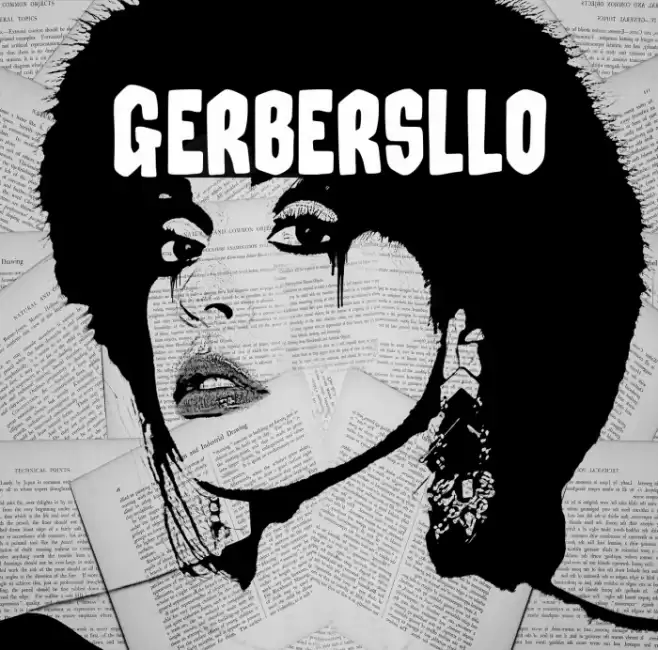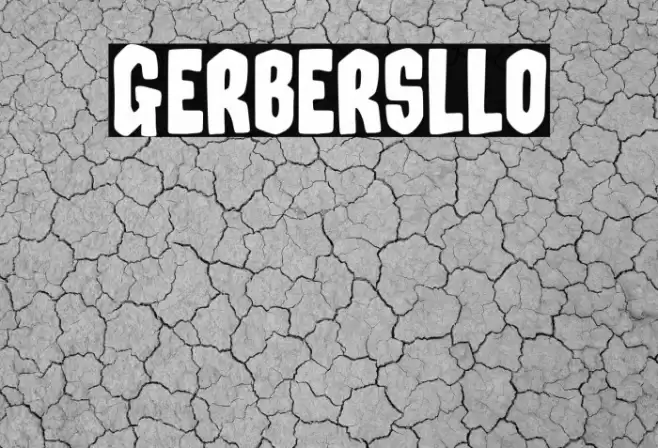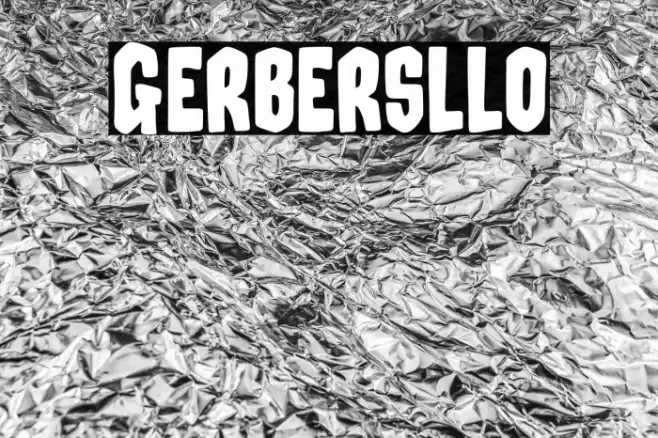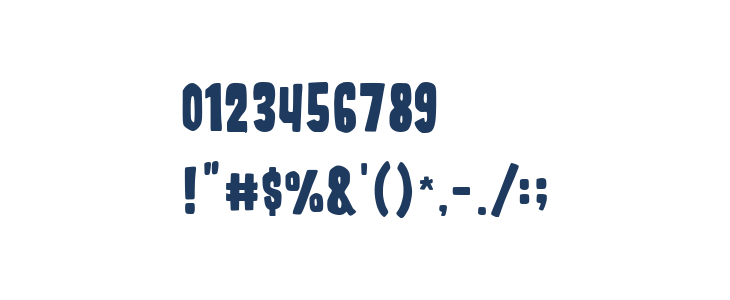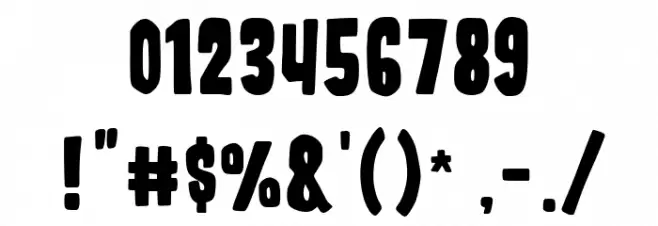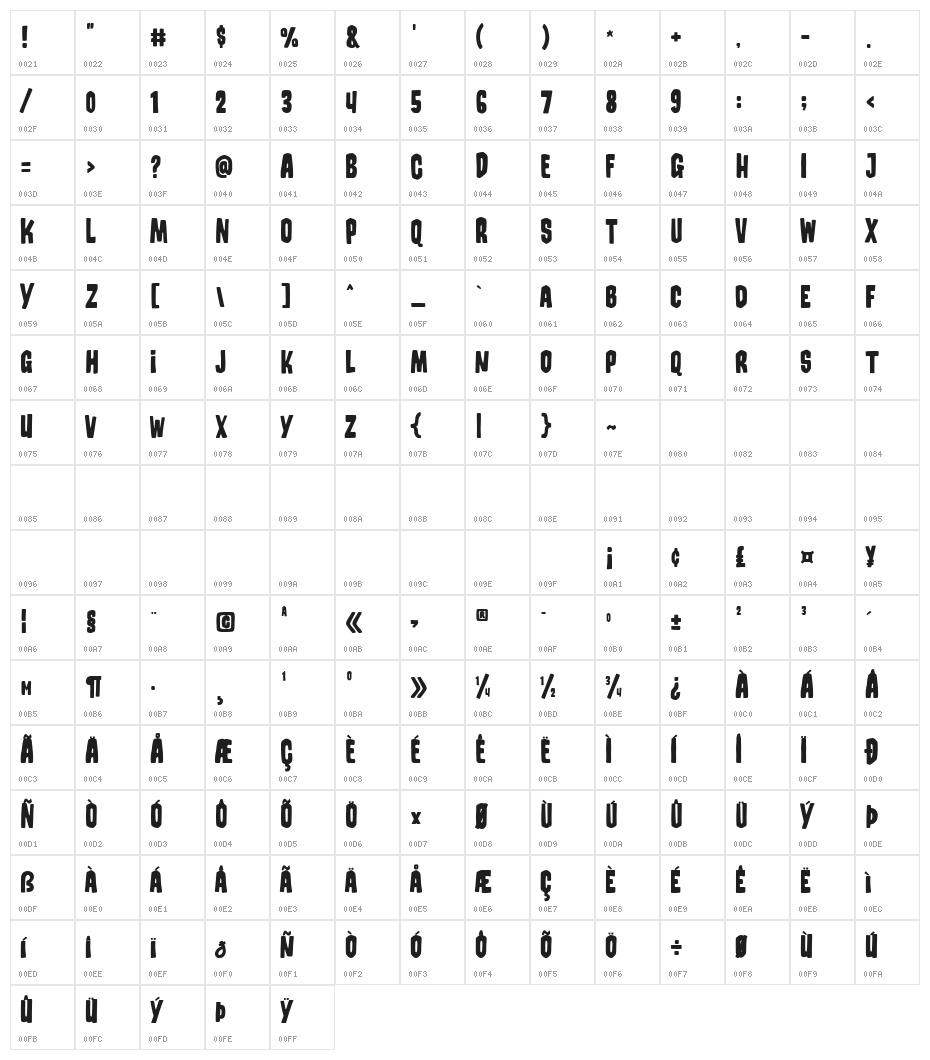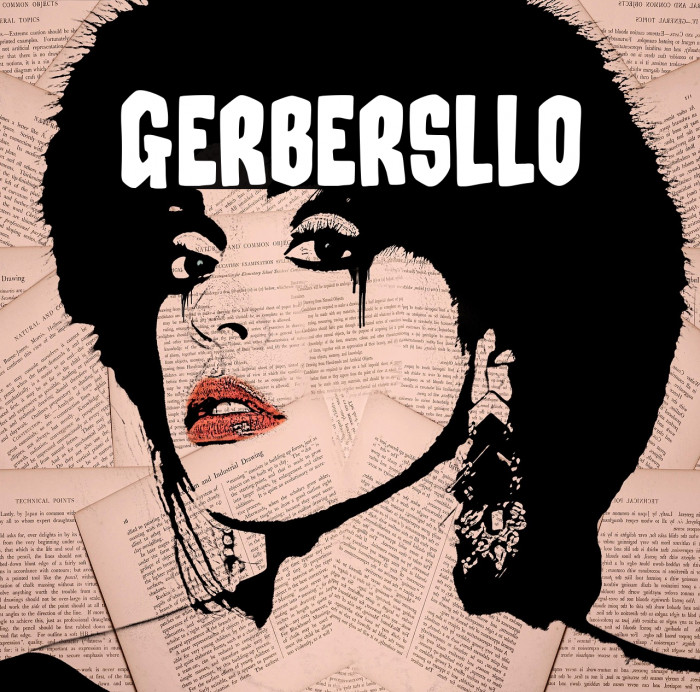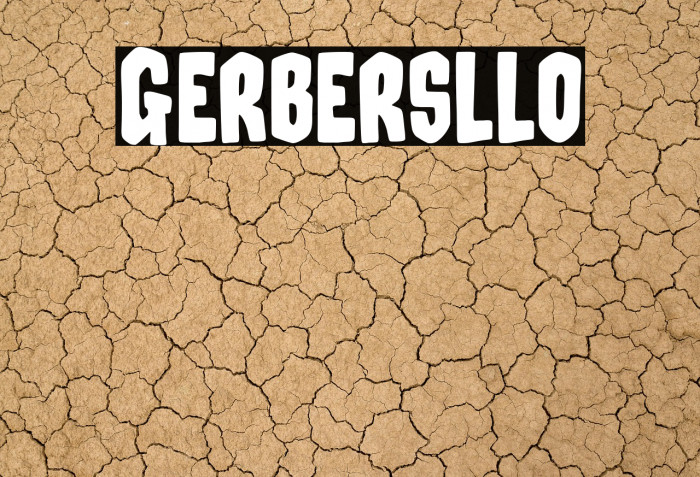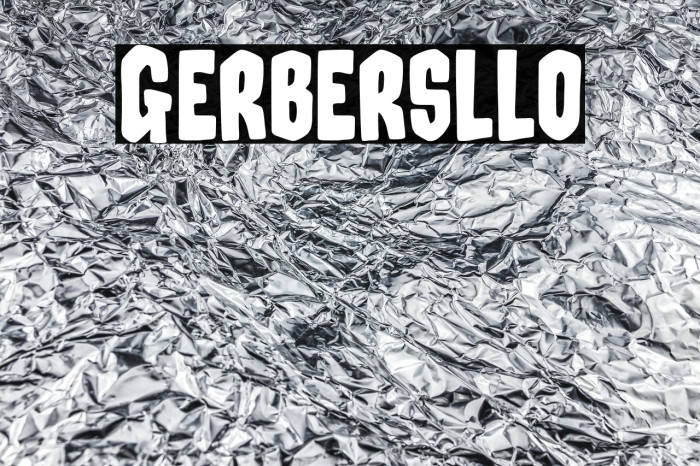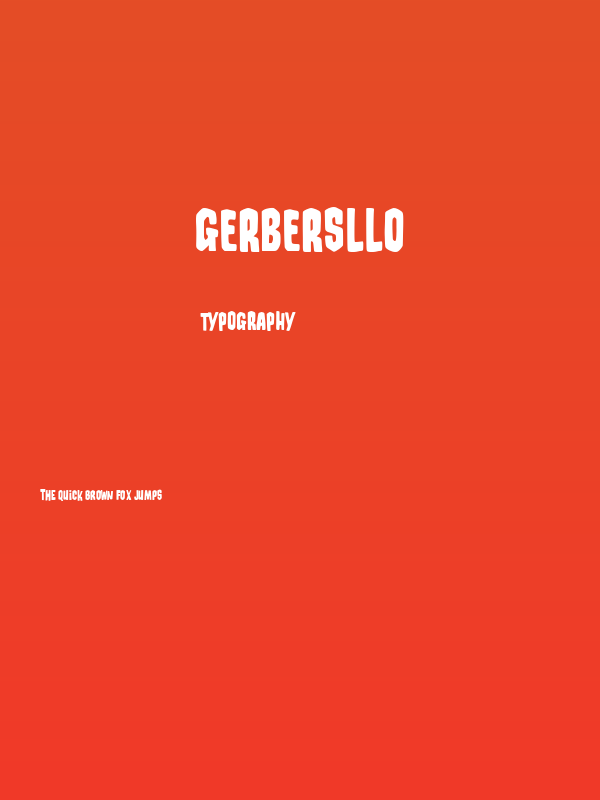
Gerbersllo Font
Gerbersllo Description
This font features a bold and playful style with thick, uneven strokes that give it a hand-drawn appearance. The characters are slightly irregular, adding a whimsical and informal touch. The uppercase and lowercase letters maintain a consistent weight, contributing to a cohesive look. The numbers and special characters follow the same design principles, ensuring uniformity across all glyphs. This font's unique style makes it stand out, making it suitable for creative and fun projects.
A bold, playful font with a hand-drawn, whimsical style from Cartoon fonts.
- Font: Gerbersllo
- Proposed Projects: Ideal for children's books, playful branding, posters, and creative invitations.
- Overall Style: Playful, Whimsical